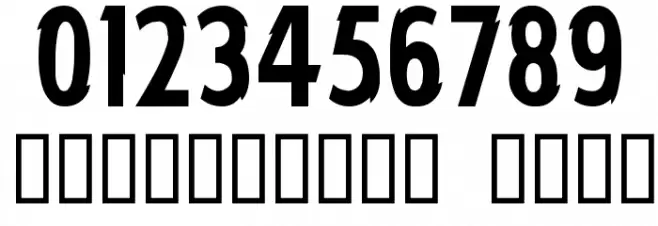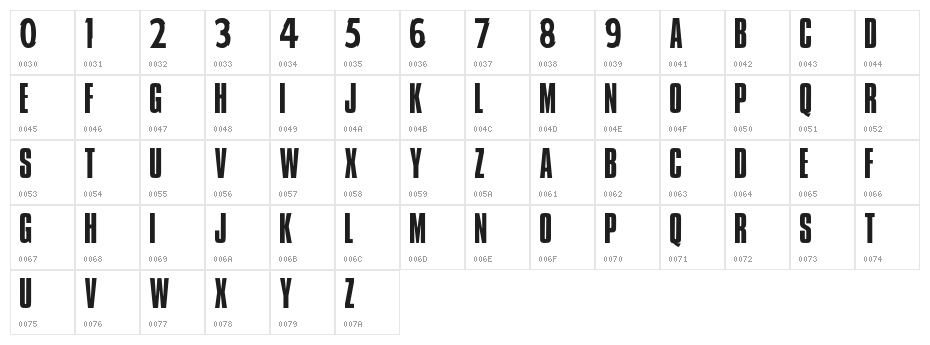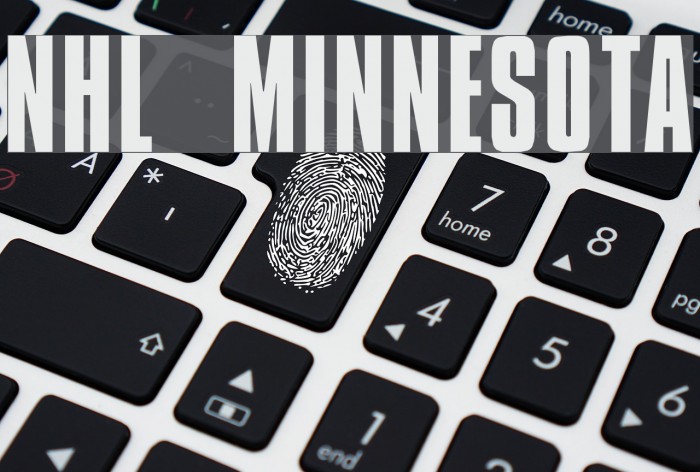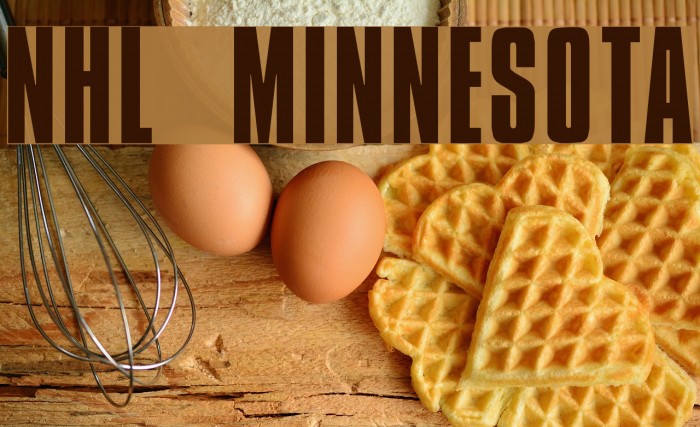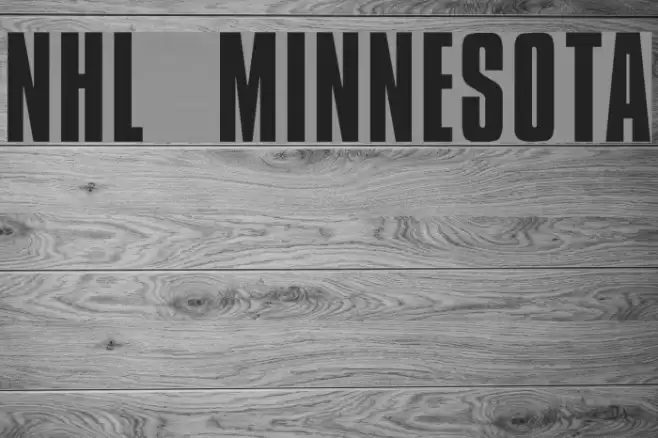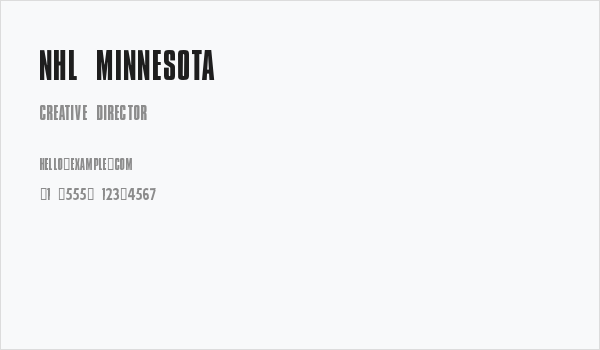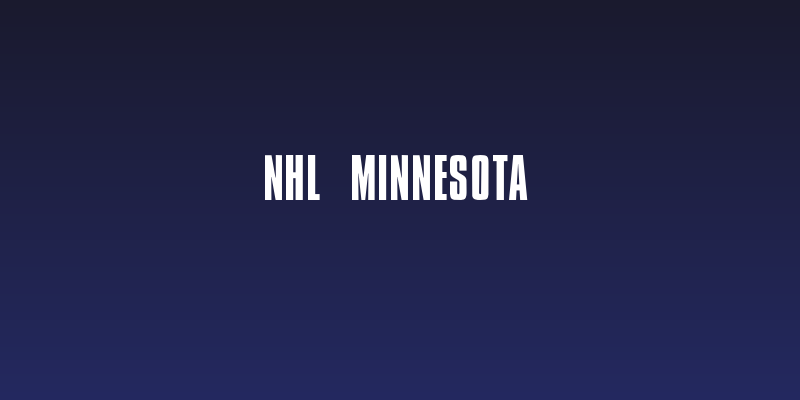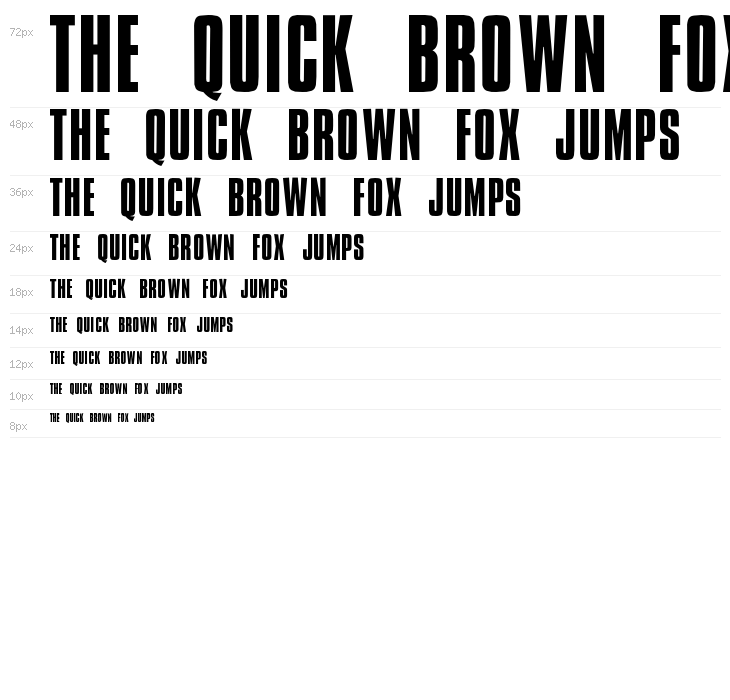
NHL Minnesota Font
NHL Minnesota Description
This font features bold, uppercase letters with a strong, impactful presence. The characters are tall and condensed, creating a sense of urgency and power. The numbers follow the same bold style, ensuring consistency across all elements. The absence of lowercase letters and special characters suggests a focus on simplicity and directness. The overall design is clean and modern, making it suitable for attention-grabbing headlines or branding that requires a bold statement.